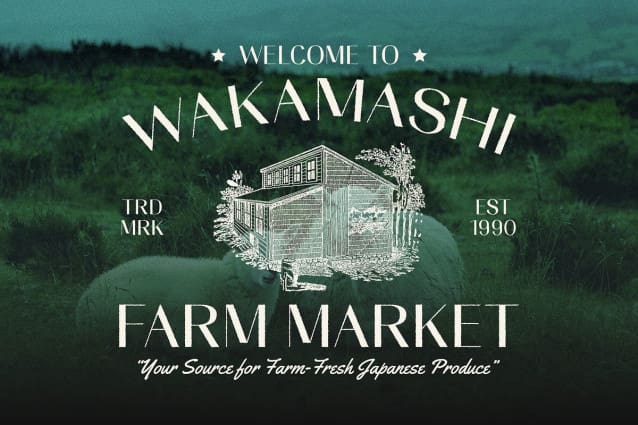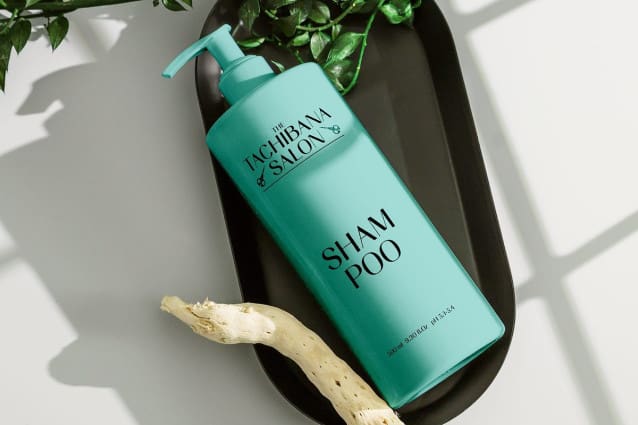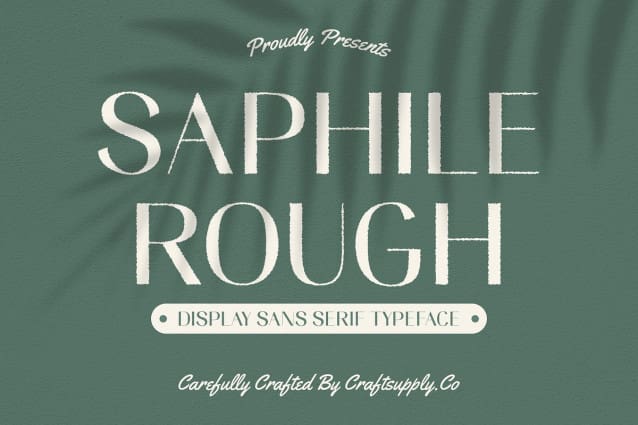
Saphile Rough Font
Saphile Rough Font is a modern sans serif font that masterfully blends a clean, minimalist design with a distinctive rough effect. Its smooth, unadorned lines exude elegance and professionalism, while the textured finish introduces a bold, unique character. This combination creates a striking visual impact, perfect for designs that require both modern sophistication and a touch of artistic edge.
Textured Effect for a Distinctive, Creative Appeal The rough effect of Saphile Rough adds a layer of texture and individuality, enhancing the font’s overall aesthetic with a slightly raw and artistic feel. This textured quality provides a strong visual contrast to its minimalist design, resulting in a font that stands out with creative flair while maintaining a refined and polished appearance.
Ideal for Branding, Posters, and Promotional Materials Saphile Rough’s versatility makes it an excellent choice for a wide range of applications. Whether used in branding, posters, or promotional materials, this font combines elegance with a distinctive rough edge, ensuring that your designs capture attention and convey both sophistication and originality.